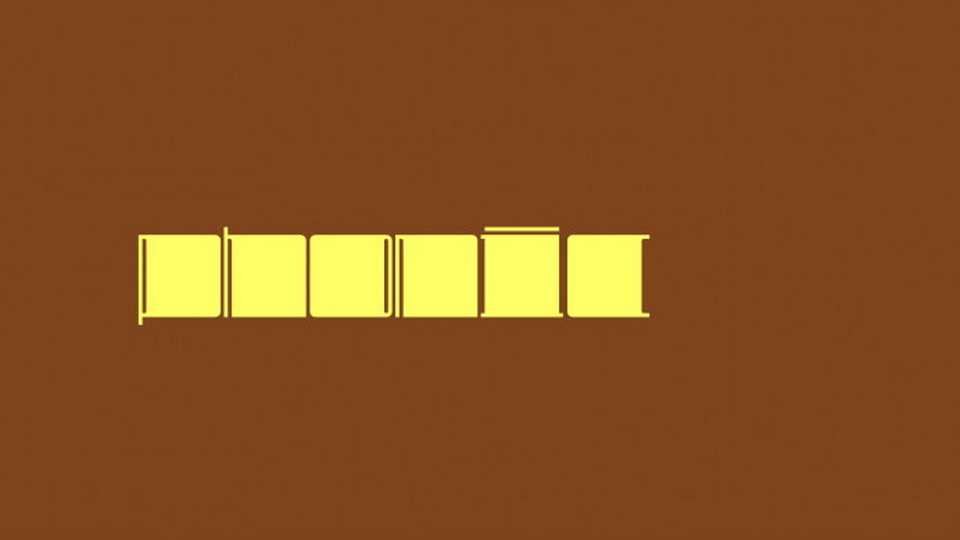
Download Phonic is an ultra high contrast display typeface with a retro vibe. The block structure of Phonic font allows to create various typographic compositions with striking simplicity.
Designer: George Arnold